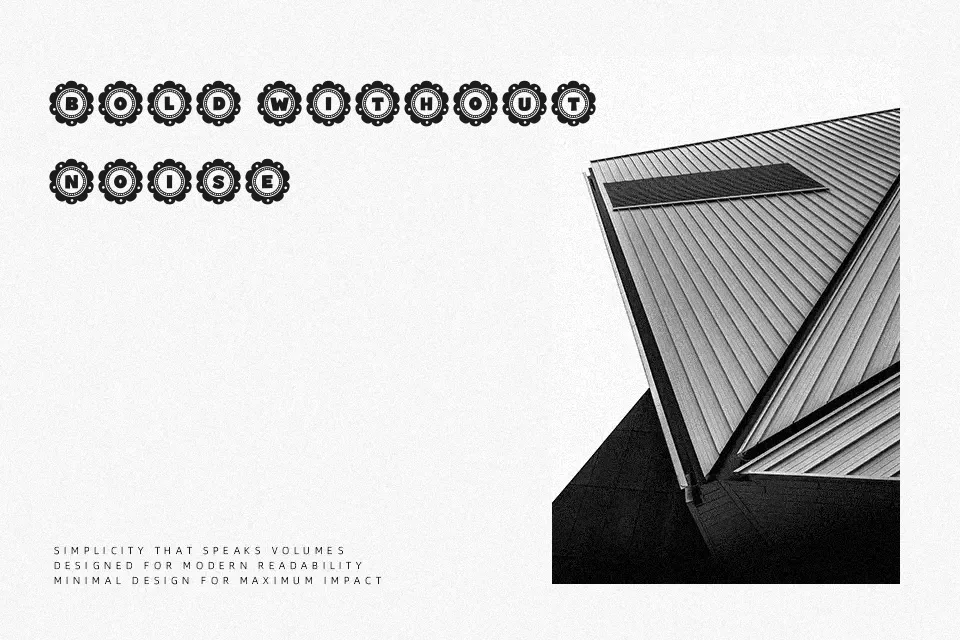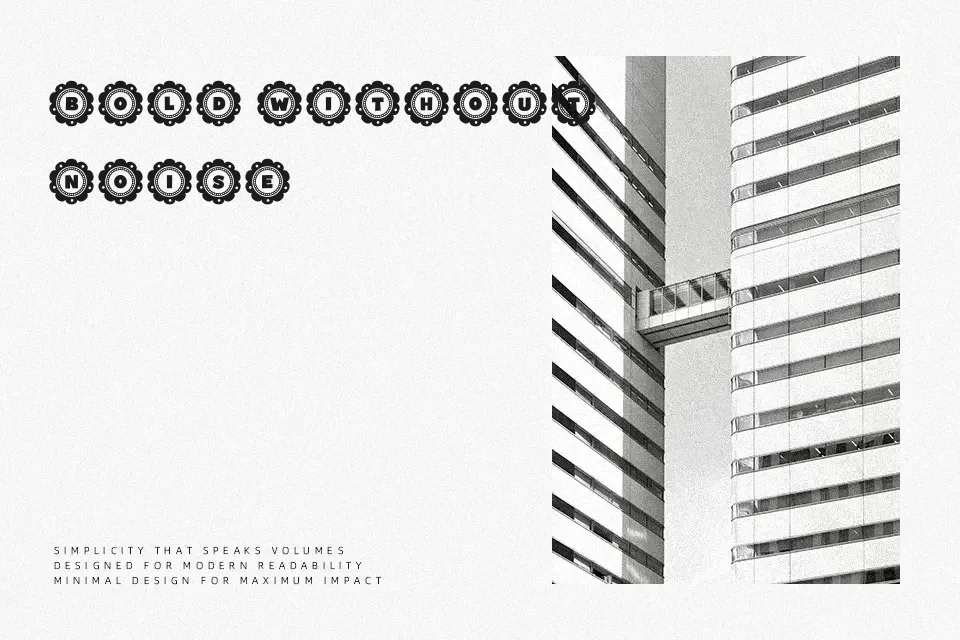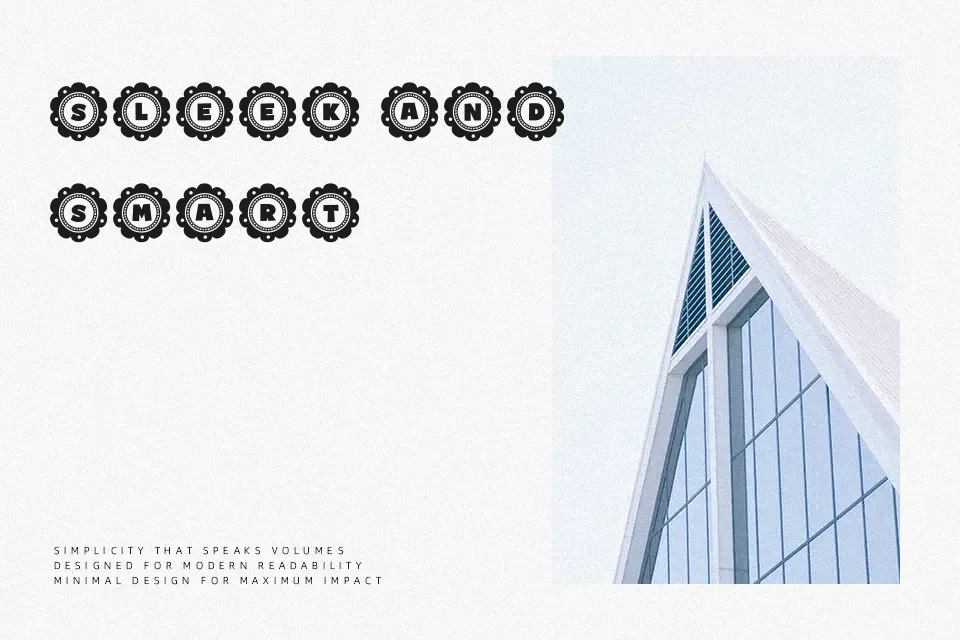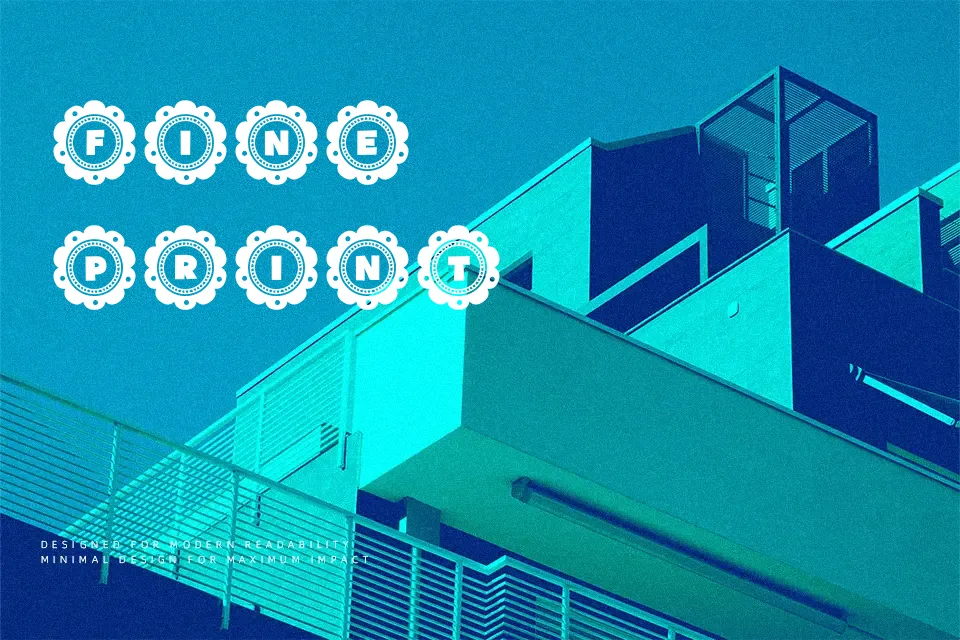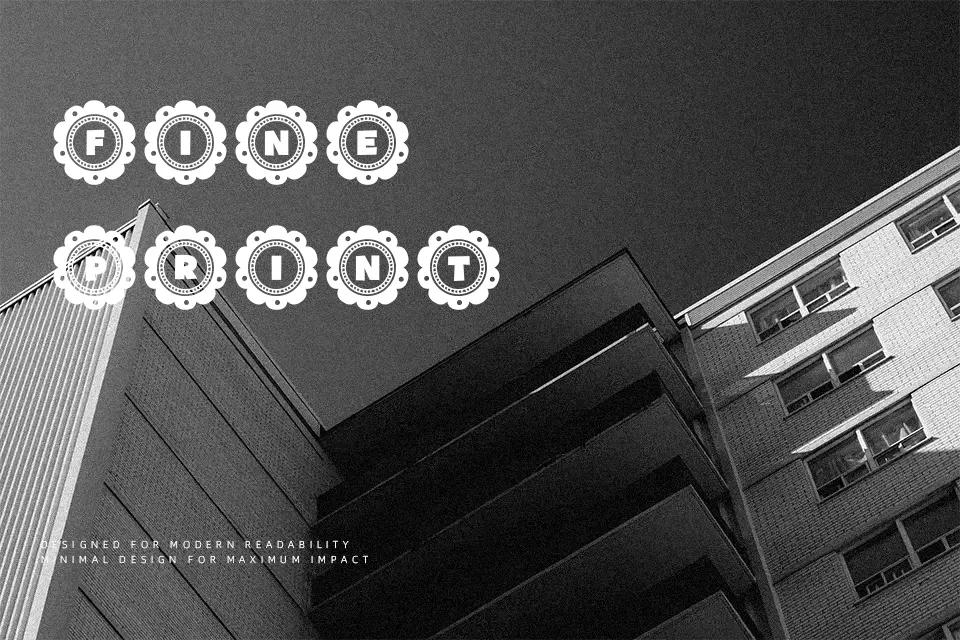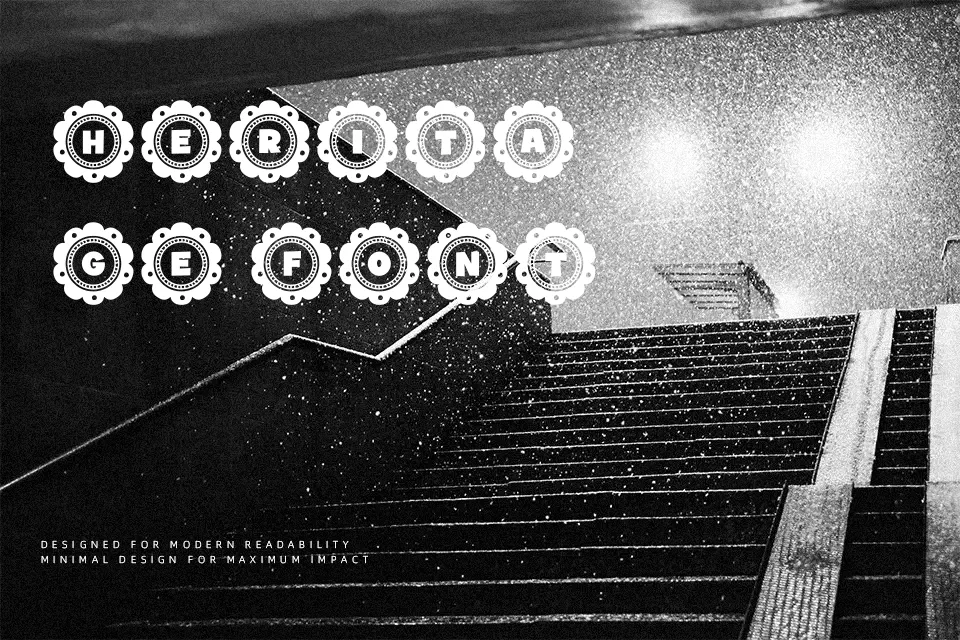
Sence Font
Sence Font is a decorative display typeface defined by distinct geometric contours, uniform stroke weight, and balanced character proportions. The letterforms exhibit clean lines with stylized architectural cuts, creating an eye-catching rhythm across uppercase and lowercase sets. Spacing is comfortably proportioned for large text elements, ensuring strong visual presence without feeling overly crowded. When set at display scale, the design delivers crisp letter distinction and immediate visual appeal. However, the stylized glyph geometry becomes difficult to read in dense paragraphs or small interface labels. The typeface functions best in headline applications, apparel graphics, and packaging titles where bold styling takes center stage.
Best For: music festival posters,apparel graphics,packaging titles,website hero headlines
Not Ideal For: continuous body text,technical documentation,small interface labels,dense editorial paragraphs
Perfect for advertising, headline, and logo, with a artistic and decorative style.